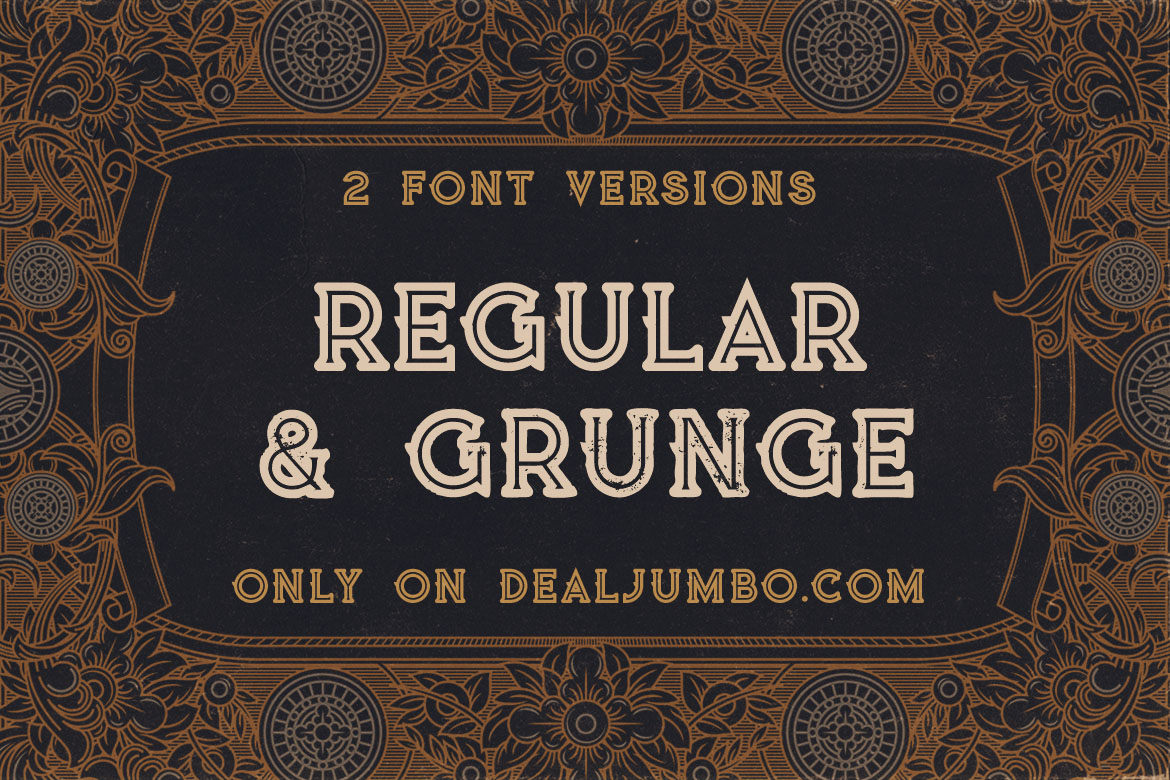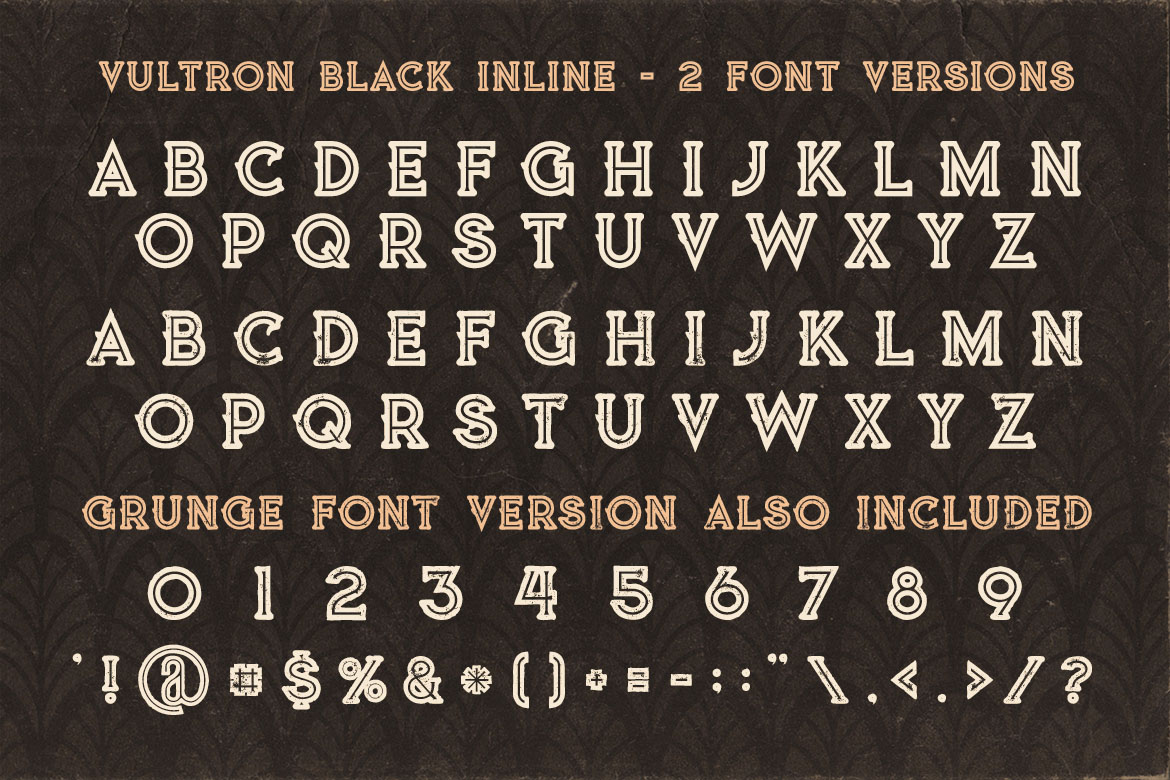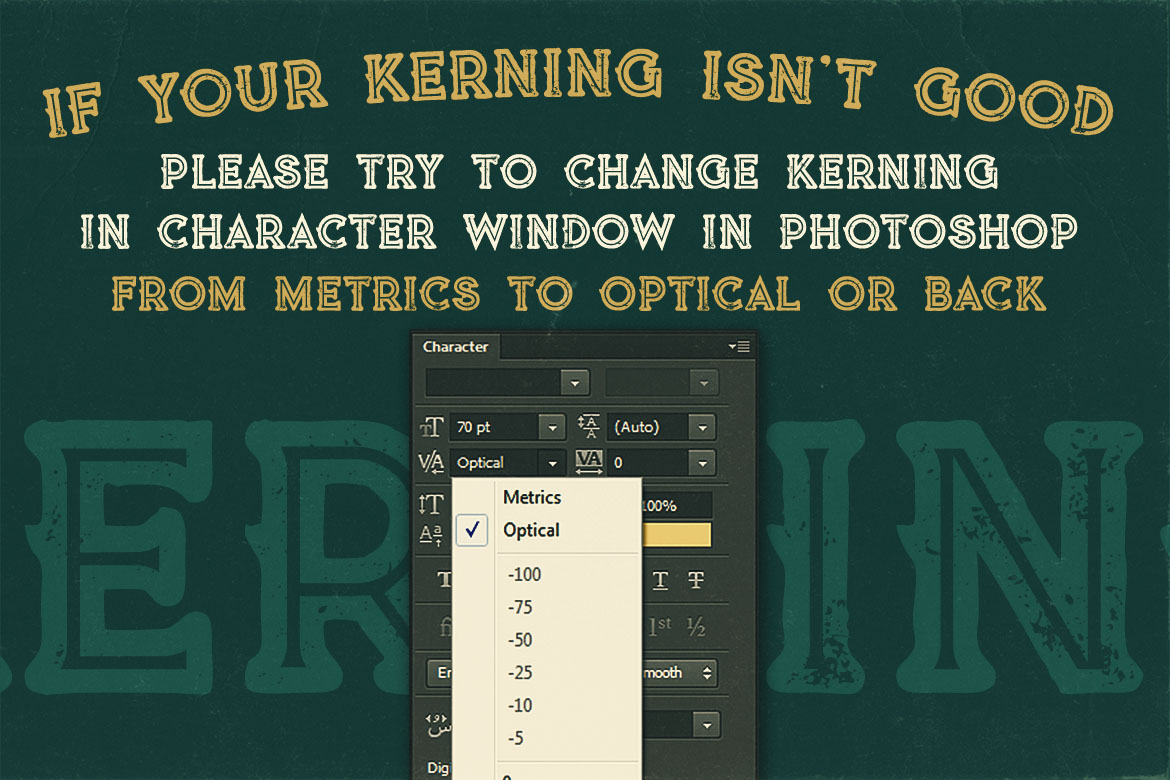
Vultron Black Inline – Free Font
Black inline retro or vintage display serif – free font from Jumbo Design. Only basic characters in 2 font versions: Regular & Grunge. Download & enjoy 😉 Exclusive only for dealjumbo!